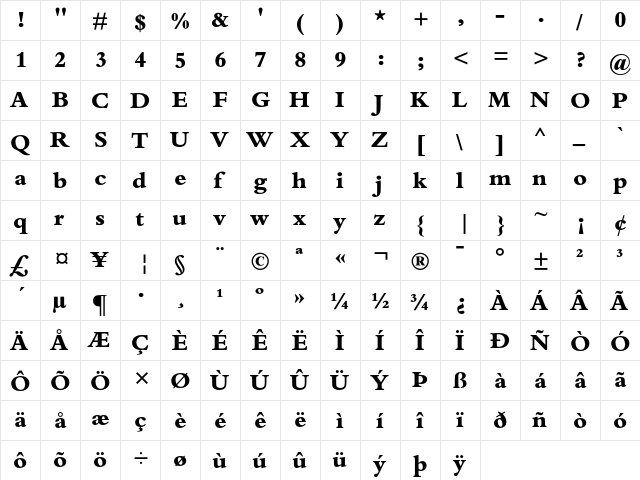
Bembo Extra Bold
Design Context for Bembo Typeface
Bembo is a composed and adaptable typeface that performs quietly and consistently across a wide range of design contexts. The heavy weight commands attention and anchors typographic hierarchies.
Pro Tip: Use Bembo in both headline and body roles to test its range before committing to a single application.